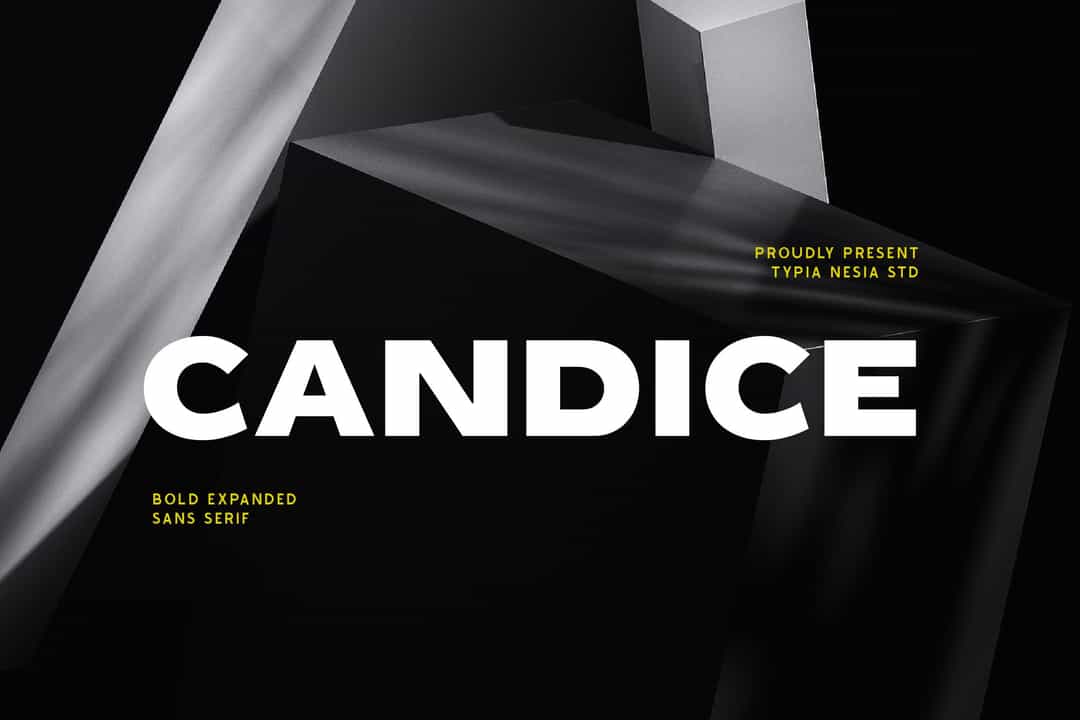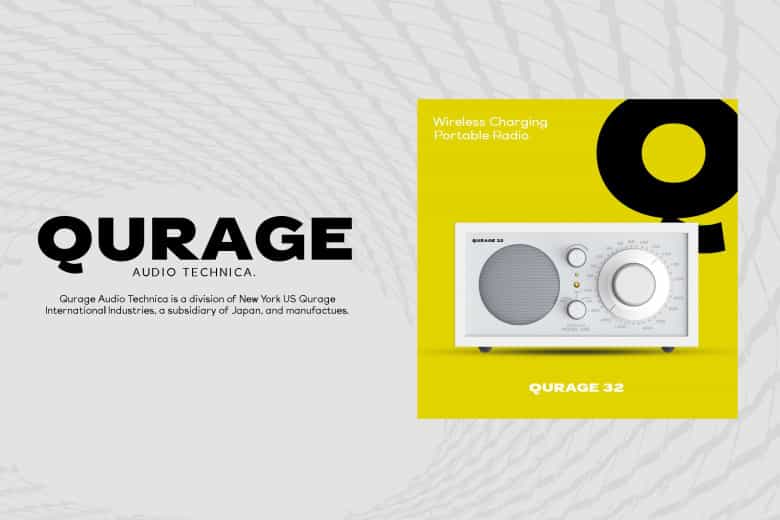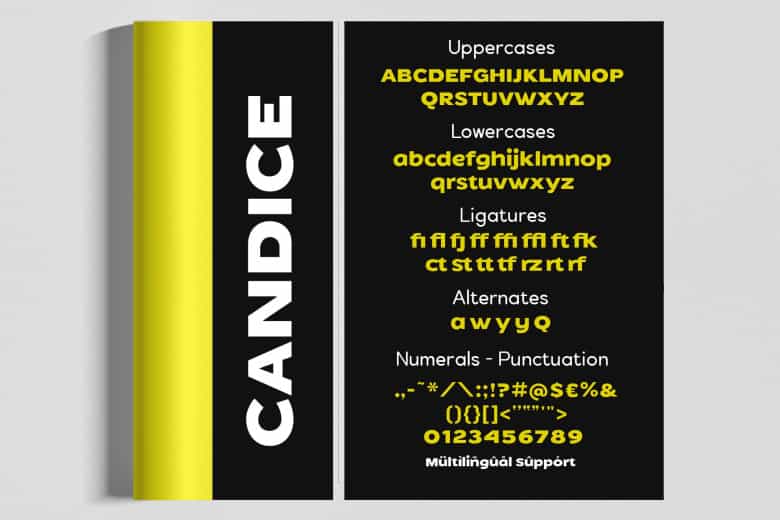
Discover Candice Font, part of the Sans Serif collection—a versatile and unique font perfect for adding a personal touch to your projects. Download it for free and enjoy crafting designs with style, from invitations to social media posts. This font is available exclusively for personal use, giving you the freedom to create without limits. Unlock your creativity with Candice Font today!
Candice Sport Game Sans Serif Display Font is perfect for all your future projects, such as logo branding and editorial design, esports-style designs like Fitness Gym Branding, racing Supercar brand posters, contemporary advertisement design posters showcasing quotes or book cover titles or special events and much more.